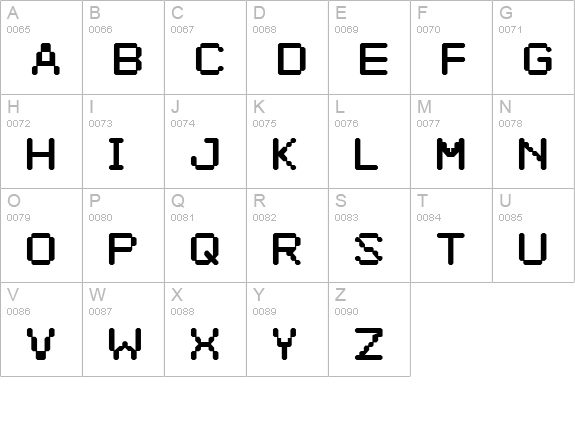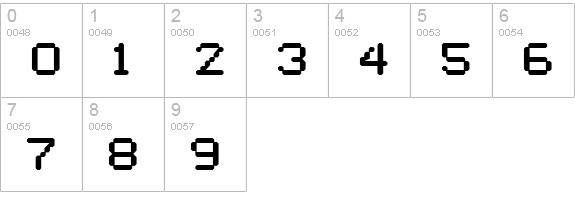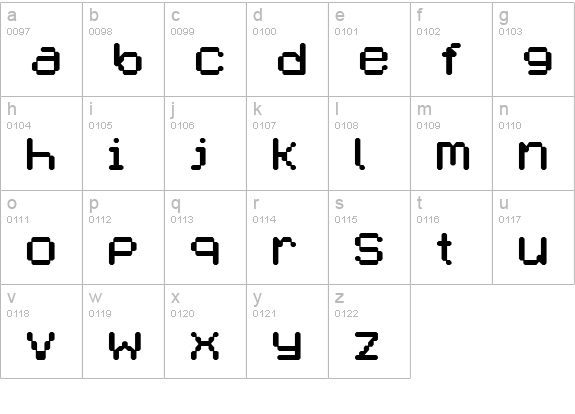
Selector Font Details
Introducing Selector font, a stunning and versatile typeface that is sure to elevate any design project. With its sleek and modern appearance, Selector font is perfect for creating eye-catching headlines, logos, and branding materials. What sets Selector font apart is not only its striking visual appeal but also its accessibility - it is available for free download at FontsMarket.com. Yes, you read that right! Selector font can be yours without any cost, making it an ideal choice for designers, students, and anyone looking to add a touch of sophistication to their work without breaking the bank. Featuring a wide range of carefully crafted letterforms, Selector font offers multiple weights and styles, giving you the freedom to experiment and create unique compositions. Whether you're designing for print or digital media, Selector font's clean lines and balanced proportions ensure legibility and visual harmony across various platforms. The versatility of Selector font is evident in its ability to adapt to different design contexts. From elegant and refined projects to bold and impactful designs, this font effortlessly captures the essence of any concept. Its timeless appeal is sure to make a lasting impression on viewers and convey your message with style and clarity. So why wait? Enhance your creative endeavors with Selector font today. Download it for free at FontsMarket.com and unlock endless possibilities for your next design project. Experience the freedom of expression and elevate your typography game with this exceptional font.